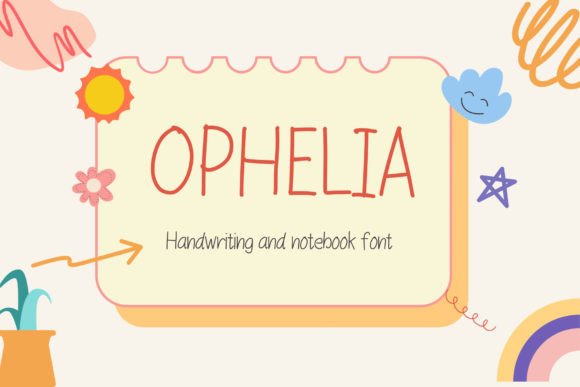
Venture into the world of creativity with Ophelia Font, a delightful script that will make your designs dance off the page! Experience the joy of expressing yourself through charming handwritten letters that add a personal touch to your projects. Whether you're crafting stunning invites, heartfelt cards, eye-catching logos, or embarking on other enthralling projects, Ophelia Font is your perfect companion.
Immerse yourself in the magic of Ophelia Font's playful sans-serif charm. Its graceful curves and elegant lines bring a touch of whimsy and lightheartedness to your creations. Let your imagination take flight as you explore new realms of design possibilities with this enchanting font.
But the magic doesn't stop there! Ophelia Font is not just a pretty face; it's also incredibly versatile. Its enchanting charm shines through effortlessly in both large and small projects, ensuring that your designs always make a lasting impression. From delicate wedding invitations to striking posters, Ophelia Font effortlessly adapts to suit your every need.